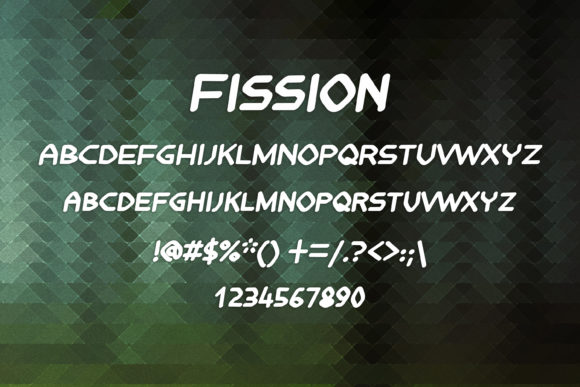
Fission Font: A Game-Changer for Designers
Fission is a modern and slick display font that feels incredibly versatile. Use it to turn any design project into a true standout! With its clean lines, elegant curves, and wide range of applications, Fission Font quickly became my go-to font for a variety of projects.
What I Love About Fission Font
- ✨ Versatility: Fission Font is incredibly versatile, making it perfect for a wide range of design projects, from logos and branding to posters and social media graphics.
- ✅ Elegant Design: The font’s clean lines and elegant curves give it a sophisticated and modern look that’s sure to impress.
- 💡 OpenType Features: Fission Font comes with a range of OpenType features, including stylistic alternates, ligatures, and glyphs, giving designers plenty of creative options.
While Fission Font is an excellent choice for many design projects, there are a few things to keep in mind:
- ⚠️ Limited Suitability for Body Text: While Fission Font is perfect for headlines and titles, it may not be the best choice for body text due to its sleek and modern design.
- 🤔 Glyph Compatibility: Some glyphs and special characters may not work seamlessly with all design software or platforms.
The Story Behind Fission Font
Fission Font was designed by a team of typographers who wanted to create a font that would be both modern and versatile. Inspired by the latest design trends and technological advancements, they crafted a font that would meet the needs of contemporary designers. With its sleek lines and elegant curves, Fission Font is the perfect choice for designers looking to create stunning visual content.
Q: What is Fission Font?
A: Fission Font is a modern and slick display font designed for a wide range of applications, from logos and branding to posters and social media graphics.
Q: Is Fission Font suitable for body text?
A: While Fission Font is perfect for headlines and titles, it may not be the best choice for body text due to its sleek and modern design.
Q: Does Fission Font come with OpenType features?
A: Yes, Fission Font comes with a range of OpenType features, including stylistic alternates, ligatures, and glyphs, giving designers plenty of creative options.